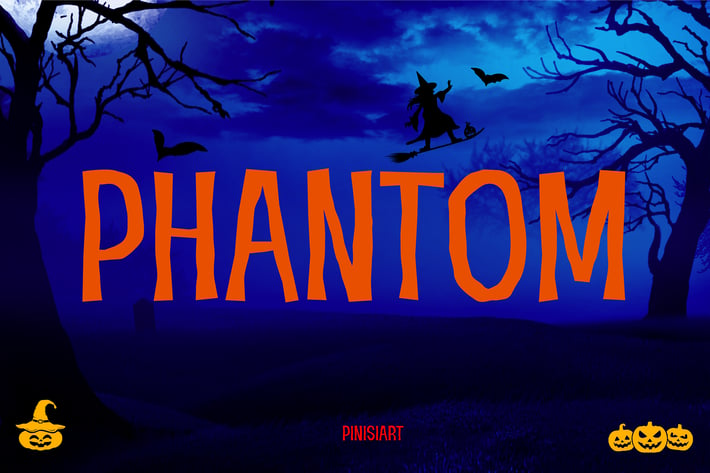
Mystery Font - Phantom
PHANTOM: Hauntingly Beautiful Font for Halloween and Spooky Themes
PHANTOM is the ultimate font for adding a ghostly charm to your Halloween projects. Its quirky yet eerie style is perfect for event posters, spooky branding, and creative projects needing a haunted twist. The font’s unique letterforms captivate attention while delivering a playful yet mysterious vibe.
PHANTOM seamlessly integrates into seasonal designs, from Trick-or-Treat party invitations to pumpkin-carving flyers. It's also ideal for crafting eerie product packaging, creepy book covers, and themed social media posts. Whether you’re conjuring up scary movie posters or haunted house advertisements, PHANTOM brings your Halloween concepts to life with style.
Market Applications:
Halloween party invitations and event posters
Spooky product packaging and seasonal branding
Themed book covers and movie titles
Social media content with a haunted flair
Creative projects like mystery games and ghostly merchandise